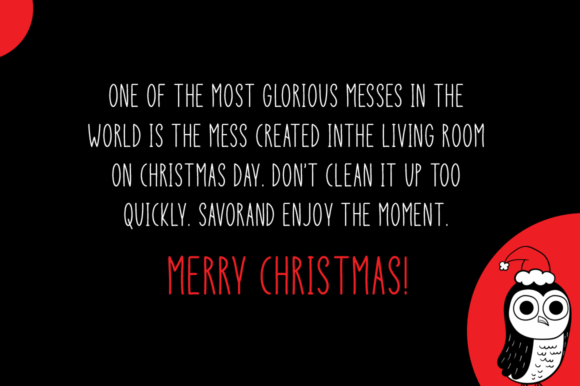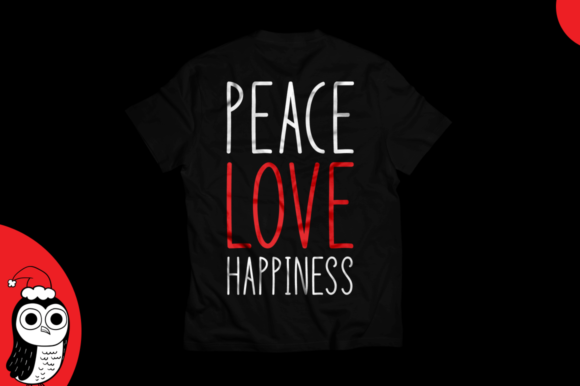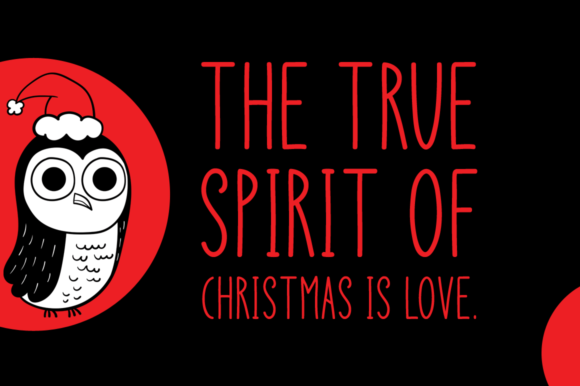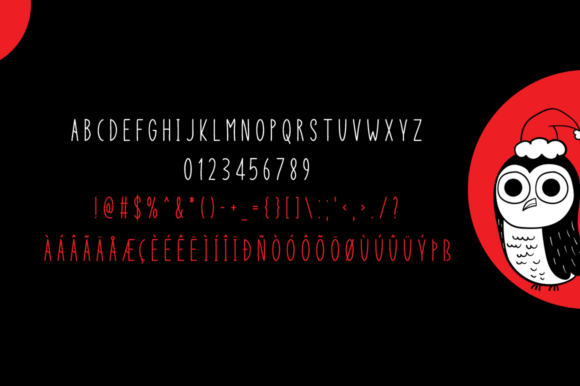
Introducing Christmas Owl Font: The Ultimate Display Font for Your Holiday Designs
Are you looking for a font that will make your holiday designs stand out from the crowd? Look no further than Christmas Owl Font! This thin and elegant display font is perfect for designers and crafters who want to add a touch of sophistication and whimsy to their Christmas-themed projects.
What Makes Christmas Owl Font So Special?
Christmas Owl Font is a unique and eye-catching font that is sure to turn any design idea into a true standout. Its thin and elegant lines make it perfect for use in a variety of design projects, from holiday cards and invitations to gift tags and decorations. The font’s slender lines also make it easy to read, even at small sizes, making it a great choice for body text as well as headlines.
Key Features of Christmas Owl Font
- Thin and elegant lines: Christmas Owl Font features delicate lines that give it a sophisticated and refined look.
- Perfect for display text: This font is designed specifically for use in display text, making it ideal for headlines, titles, and other prominent text elements.
- Easily readable: Despite its thin lines, Christmas Owl Font is easy to read, even at small sizes.
- Versatile: This font can be used in a wide range of design projects, from holiday cards and invitations to gift tags and decorations.
How to Use Christmas Owl Font in Your Designs
Christmas Owl Font is incredibly easy to use and can be incorporated into your designs in a variety of ways. Here are a few ideas to get you started:
- Holiday cards and invitations: Use Christmas Owl Font to add a touch of elegance and sophistication to your holiday cards and invitations.
- Gift tags and decorations: Add a personal touch to your gifts and decorations with Christmas Owl Font.
- Social media graphics: Use Christmas Owl Font to create eye-catching social media graphics that will help your holiday messages stand out.
- Web headers and banners: Add a festive touch to your website with Christmas Owl Font.
Tips for Getting the Most Out of Christmas Owl Font
Here are a few tips for getting the most out of Christmas Owl Font:
- Experiment with different colors: Christmas Owl Font looks great in a variety of colors, from traditional holiday colors like red and green to more modern colors like metallic silver and gold.
- Pair with other fonts: Christmas Owl Font pairs well with a variety of other fonts, including bold and playful fonts.
- Use it sparingly: Because Christmas Owl Font is a display font, it’s best to use it sparingly to add emphasis and interest to your designs.
If you’re looking for a font that will add a touch of elegance and whimsy to your holiday designs, look no further than Christmas Owl Font. With its thin and elegant lines, this font is perfect for use in a variety of design projects, from holiday cards and invitations to gift tags and decorations. So why wait? Download Christmas Owl Font today and start creating your own stunning holiday designs!